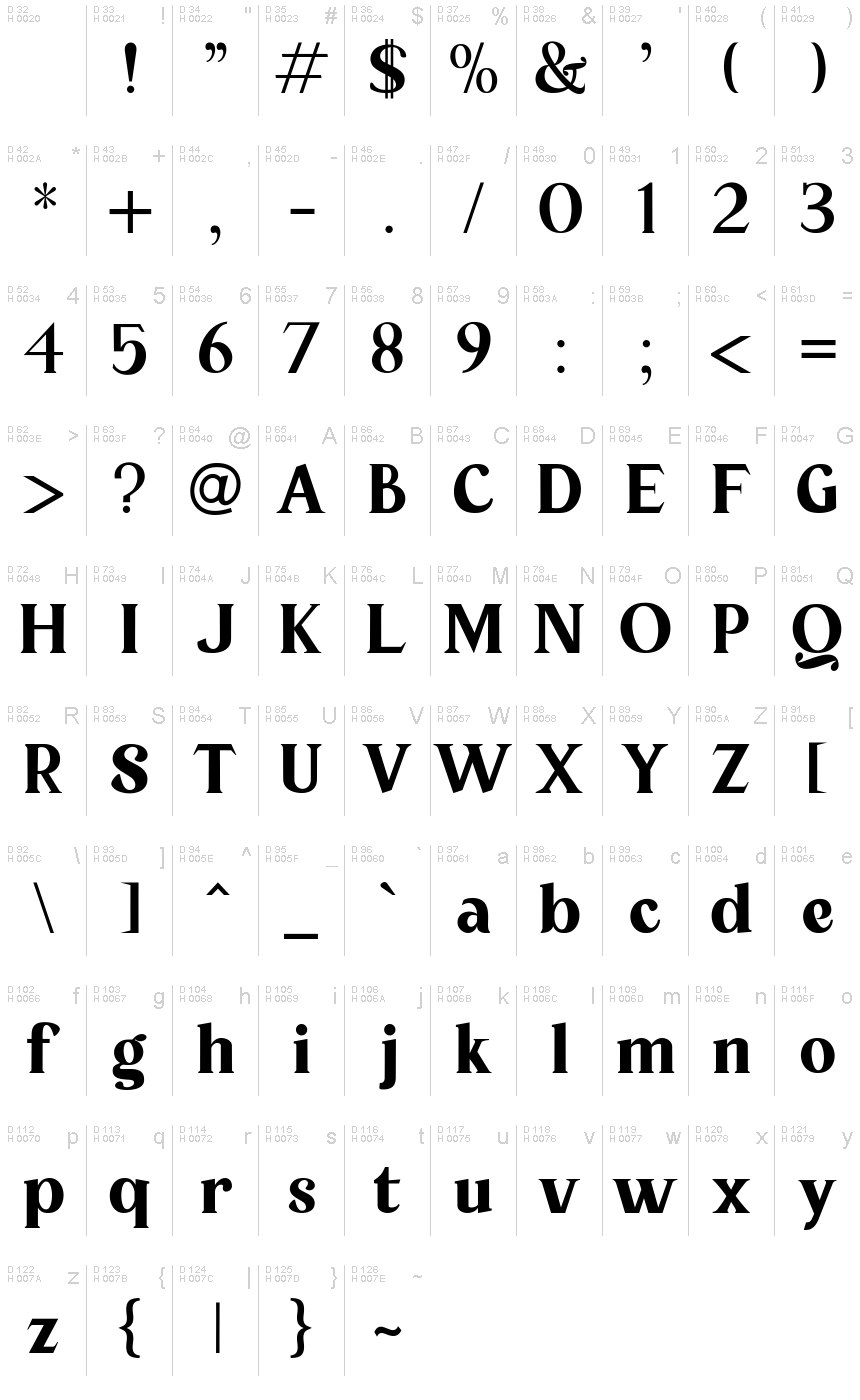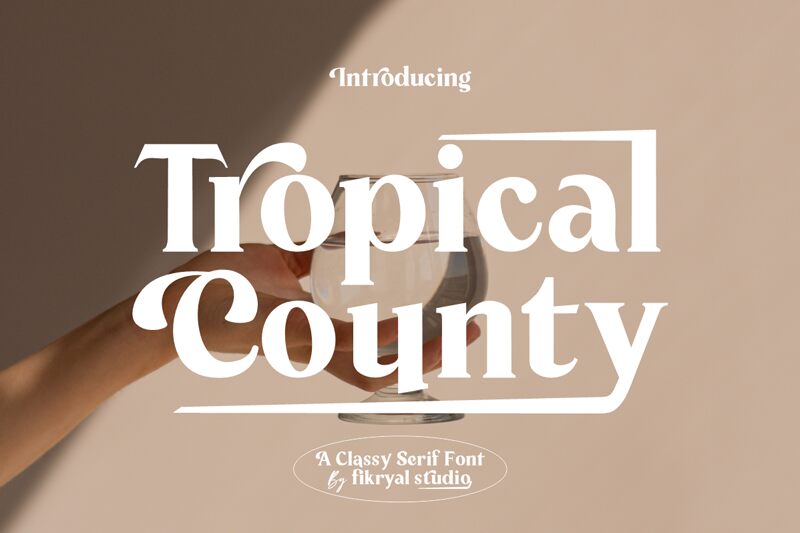
Tropical County
Tropical County, a bold serif font crafted by Fikryal Studio, exudes a captivating blend of tradition and modernity. Its strong, confident letterforms command attention, evoking a sense of timeless elegance and sophistication. The font's distinct personality shines through its striking contrast between thick and thin strokes, creating a visually dynamic and impactful typographic presence.
This versatile font lends itself to a wide range of design applications, from editorial layouts and branding to packaging and digital interfaces. Its robust and legible characteristics make Tropical County an excellent choice for headlines, titles, and eye-catching display text, seamlessly enhancing the overall aesthetic and leaving a lasting impression on the viewer.